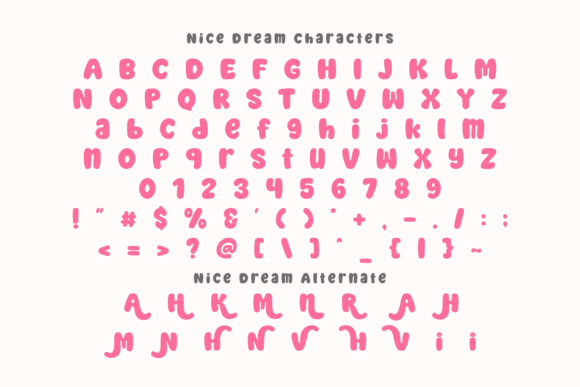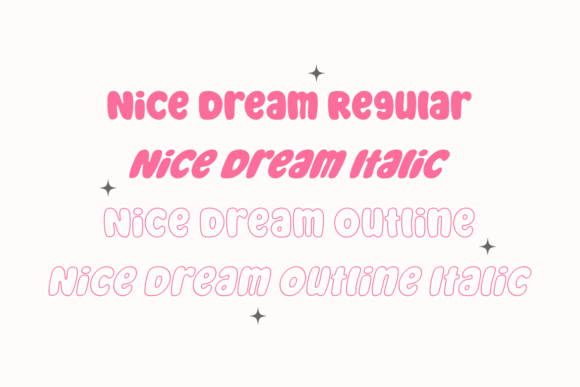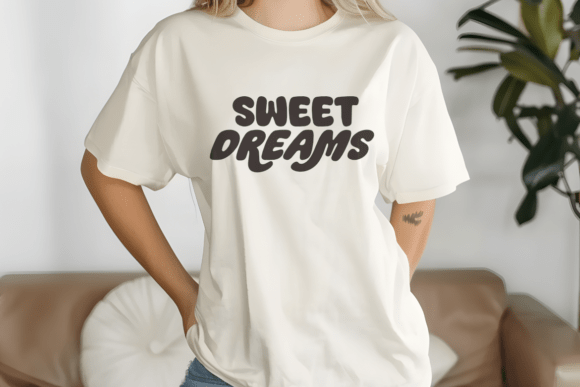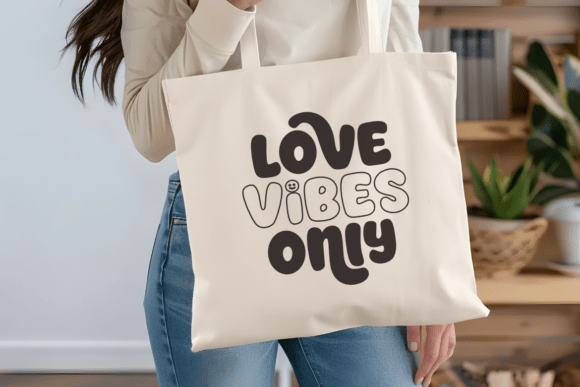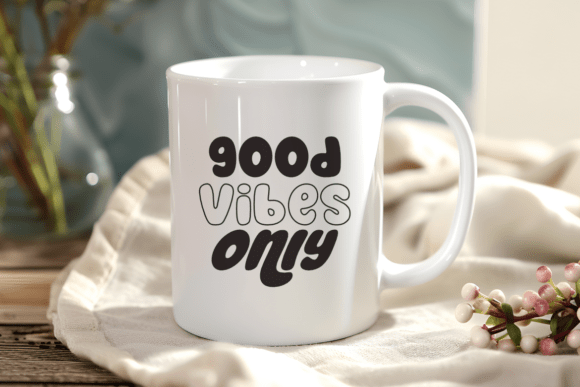
Introduction to Nice Dream Font
Sweet, soft, and full of joy, Nice Dream is a premium “bubble” display font designed to make your projects shine.
Featuring ultra-rounded forms and a friendly, pillowy silhouette, this font is the definition of “kawaii” aesthetic The playful “i” topped with a smiley face and the sparkling accents make it perfect for candy packaging, toy branding, and vibrant social media graphics.